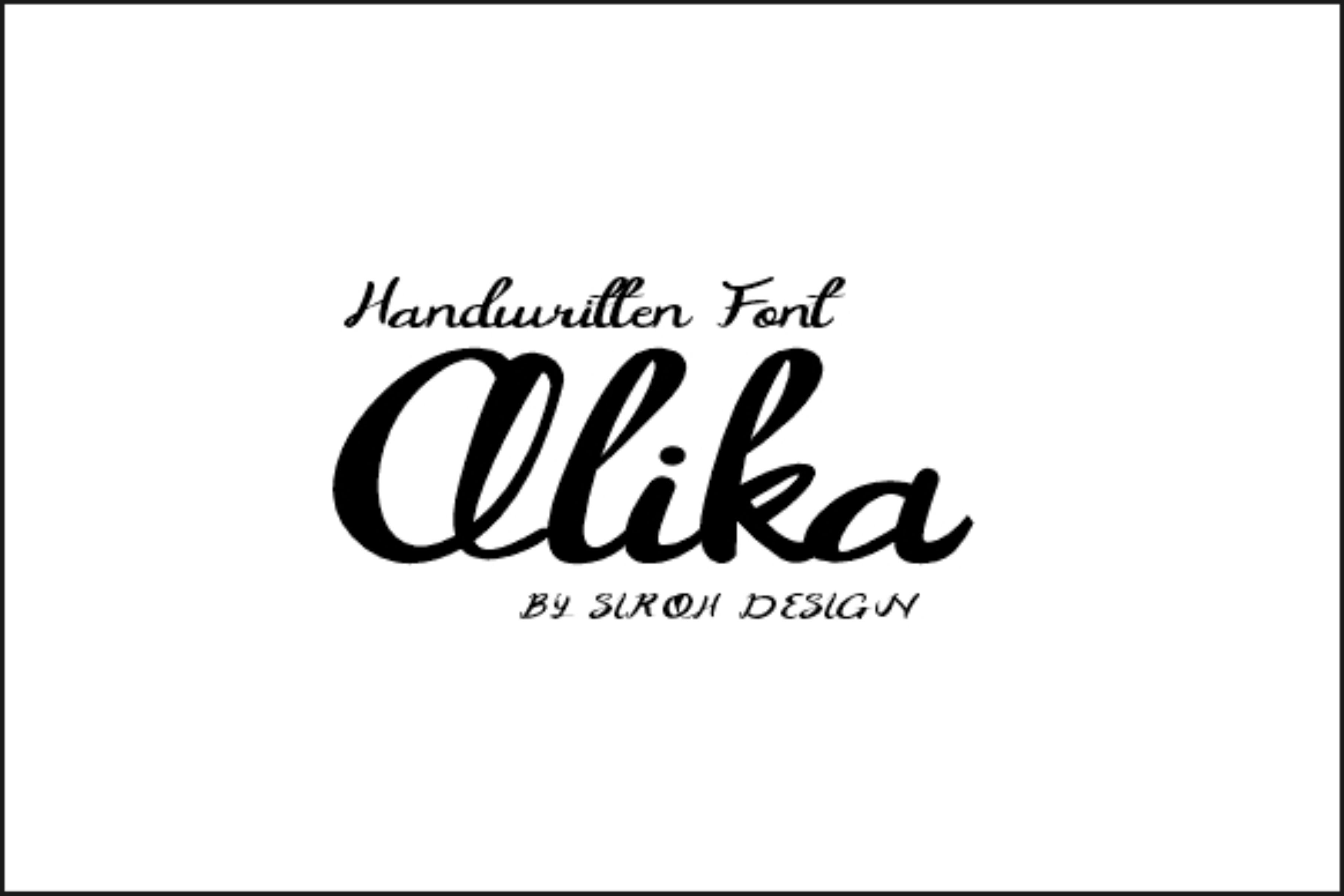
Qlika Font
QLIKA FONT SPECIMEN
Qlika is a lovely script font featuring charming, playful characters that seem to dance along the baseline. Add this font to your most creative ideas, and notice how it makes them stand out!